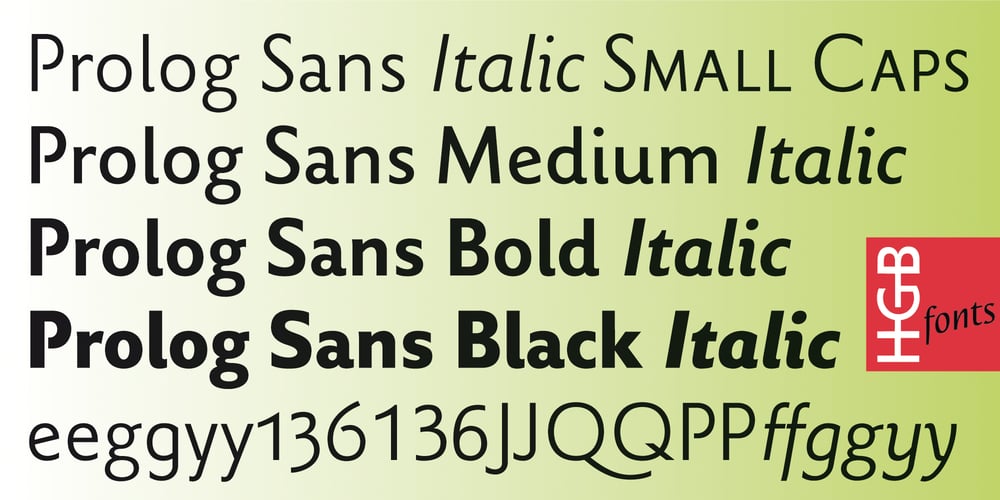
Prolog Sans Font Family was designed by Hellmut G. Bomm and published by HGB fonts. Prolog Sans contains 8 styles and family package options. Prolog is an extended font family. Based on Giovanni Francesco Cresci’s font samples from 1570, I first drew a medieval style (Prolog Venetian). I continued to follow the formal principle and created a transitional antiqua (Prolog Barock), a classicist antiqua (Prolog Modern) and a slab serif. Then came a sans-serif and a hybrid antiqua. Like all Prolog fonts, Prolog Sans has a slanted (Venetian) e in addition to a straight e. Other variants (Table Figures, Old Style Figures and alternatives of Q-P-g-y) are available via OpenType features. All Prolog fonts are designed for quantity typesetting. The typeface is pleasantly readable in small degrees and yet independent. A wonderful alternative to all common text fonts.